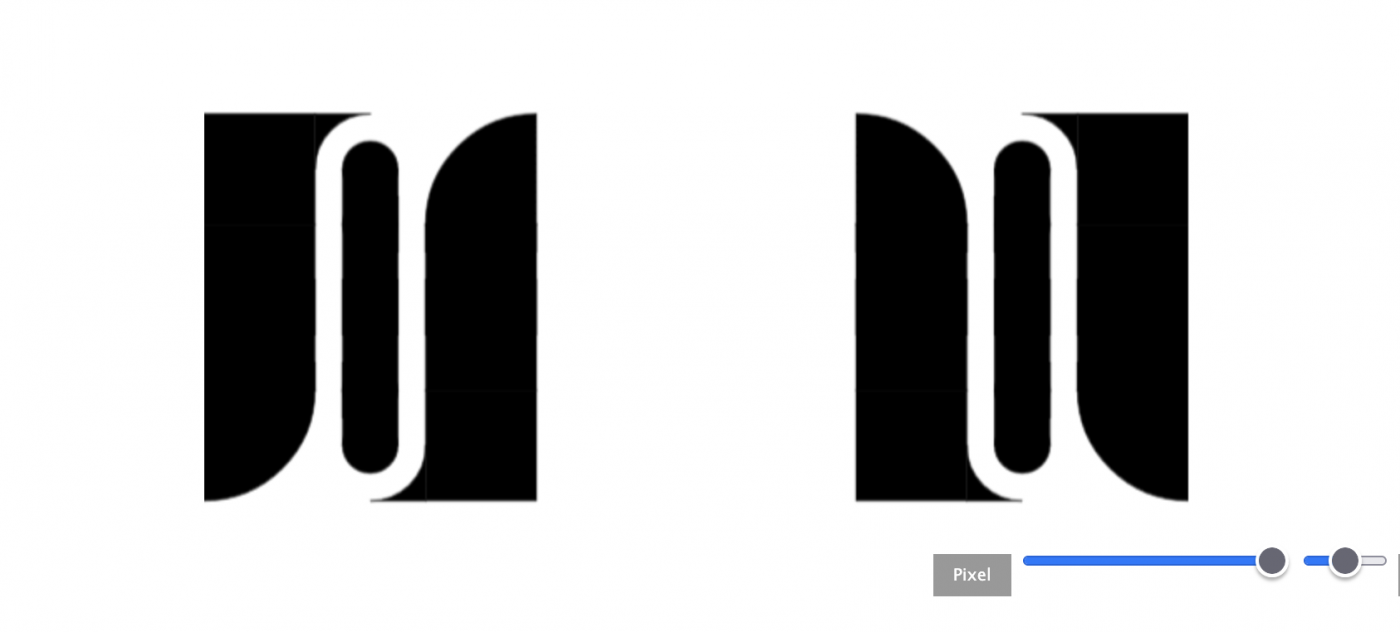
WOW! Authentic "old school" style, yet modern. How I sometimes miss those carefree and creative years, but there you are, still bringing new styles into the present that remain relevant. Thanks a lot, compa!
And what do you think about this horizontal flip on the N?
Thank you, @elliqvl and thanks for the suggestion, @elmoyenique. I changed N and Ñ.
Nice work with the filled counters!